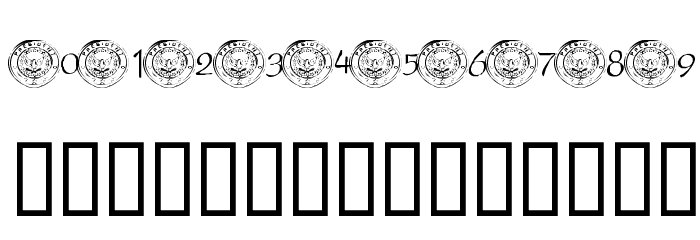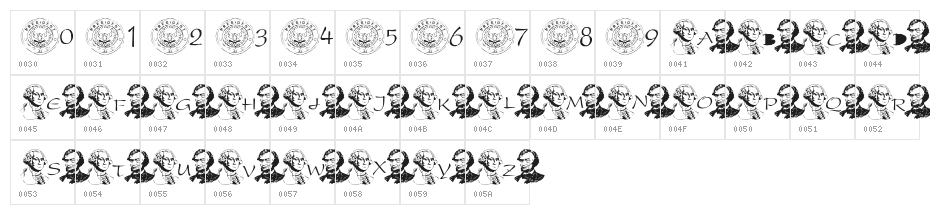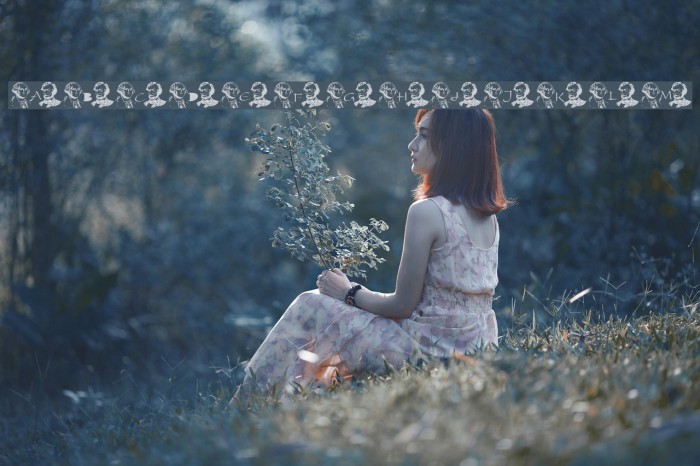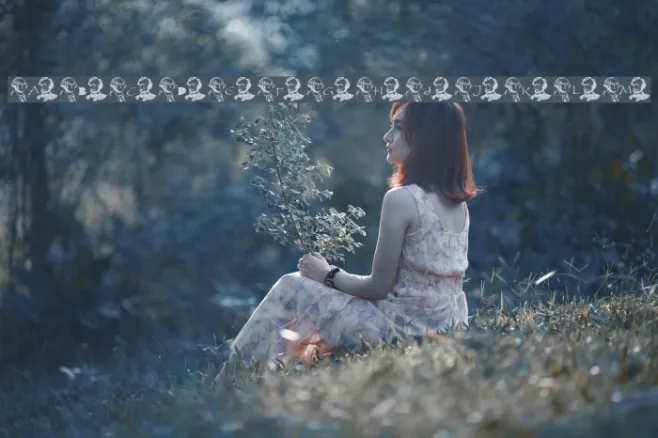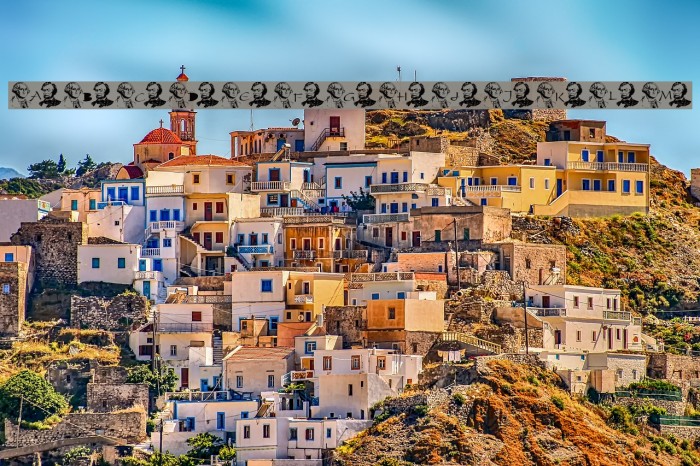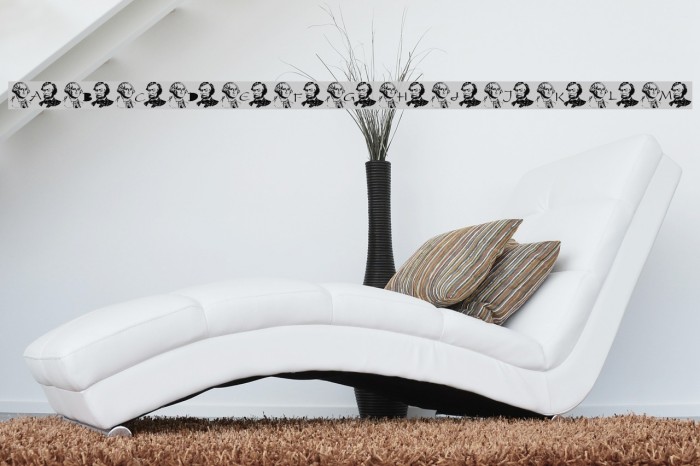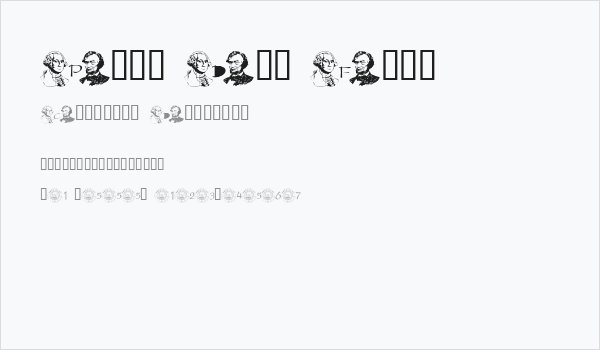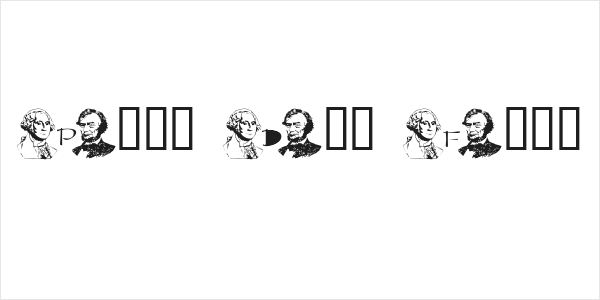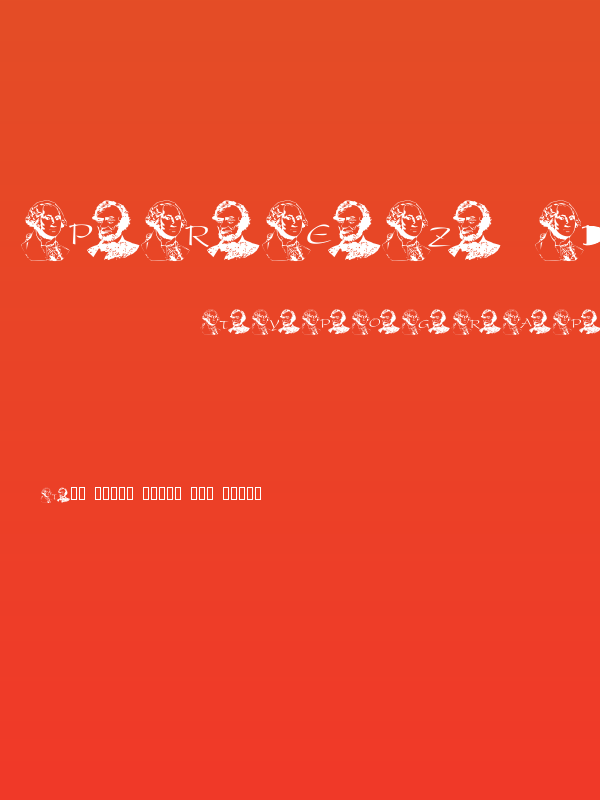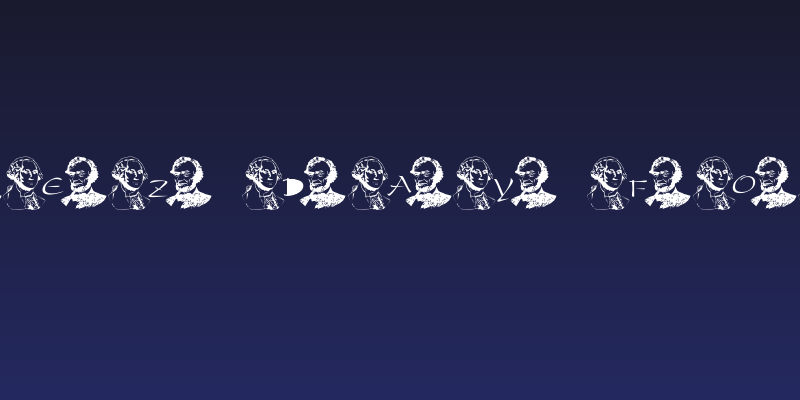
Prez Day Font Font
Prez Day Font Description
A decorative font featuring illustrated motifs of historical figures and presidential seals, with each character represented by a unique, detailed drawing rather than traditional letterforms. The style is playful and thematic, focusing on U.S. presidential imagery.
| Overall Style | Decorative, Thematic, Playful |
| Use Case | Headlines, Themed graphics, Crafts, Educational displays |
| Proposed Projects | Themed event posters, educational materials, holiday decorations, party invitations, or history-related crafts. |